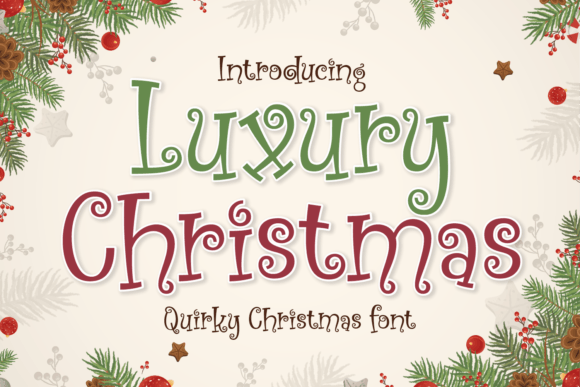
Introducing Luxury Christmas Font, a truly breathtaking addition to your fonts' collection! Created by the talented designer Wankriss, this decorative font is specifically designed to bring a touch of luxury and elegance to your projects, especially during the holiday season.
With its exquisite design and meticulous attention to detail, Luxury Christmas Font is the perfect choice for anyone looking to create visually stunning and captivating content. Whether you're designing a Christmas card, a festive website, or even crafting personalized gifts, this font will effortlessly elevate your creations to a whole new level.
What sets Luxury Christmas Font apart from the rest is its versatility. It seamlessly blends with any topic or theme, making it suitable for a wide range of creative endeavors. Its timeless beauty evokes a sense of warmth and nostalgia, instantly capturing the essence of the holiday spirit.
Imagine the excitement your audience will feel when they come across your stunning website, adorned with the elegance of Luxury Christmas Font. Its eye-catching curves and intricate details are sure to captivate their attention and leave a lasting impression. With this font, you have the power to create a truly immersive and enchanting experience for your users.
But Luxury Christmas Font is not just about aesthetics; it's also about functionality. Its clean and legible design ensures that your message is conveyed with clarity and precision. Whether you're crafting headlines, body text, or even call-to-action buttons, this font guarantees readability without compromising on style.
Furthermore, Luxury Christmas Font is meticulously crafted to be user-friendly. Its easy-to-use features enable you to effortlessly customize the font size, color, and spacing, allowing you to unleash your creativity and create designs that truly reflect your vision.